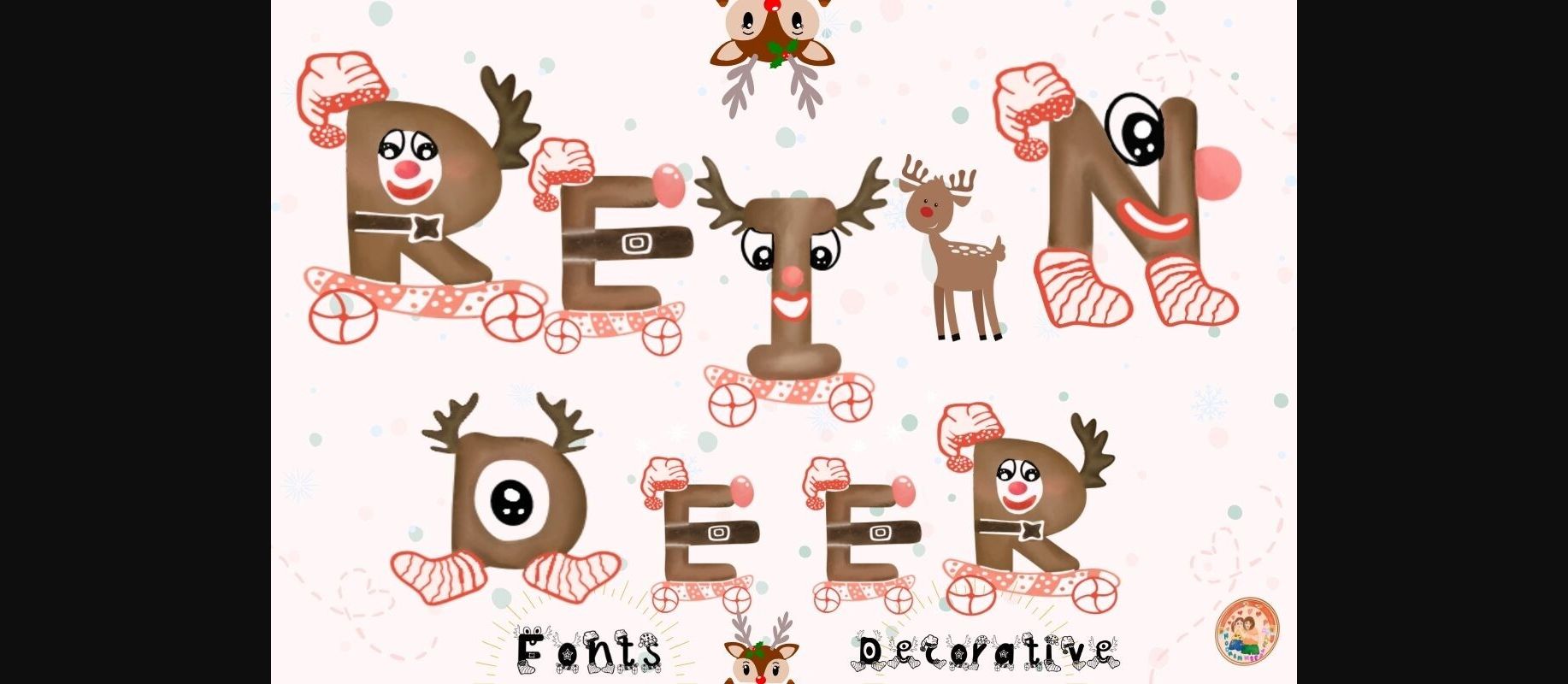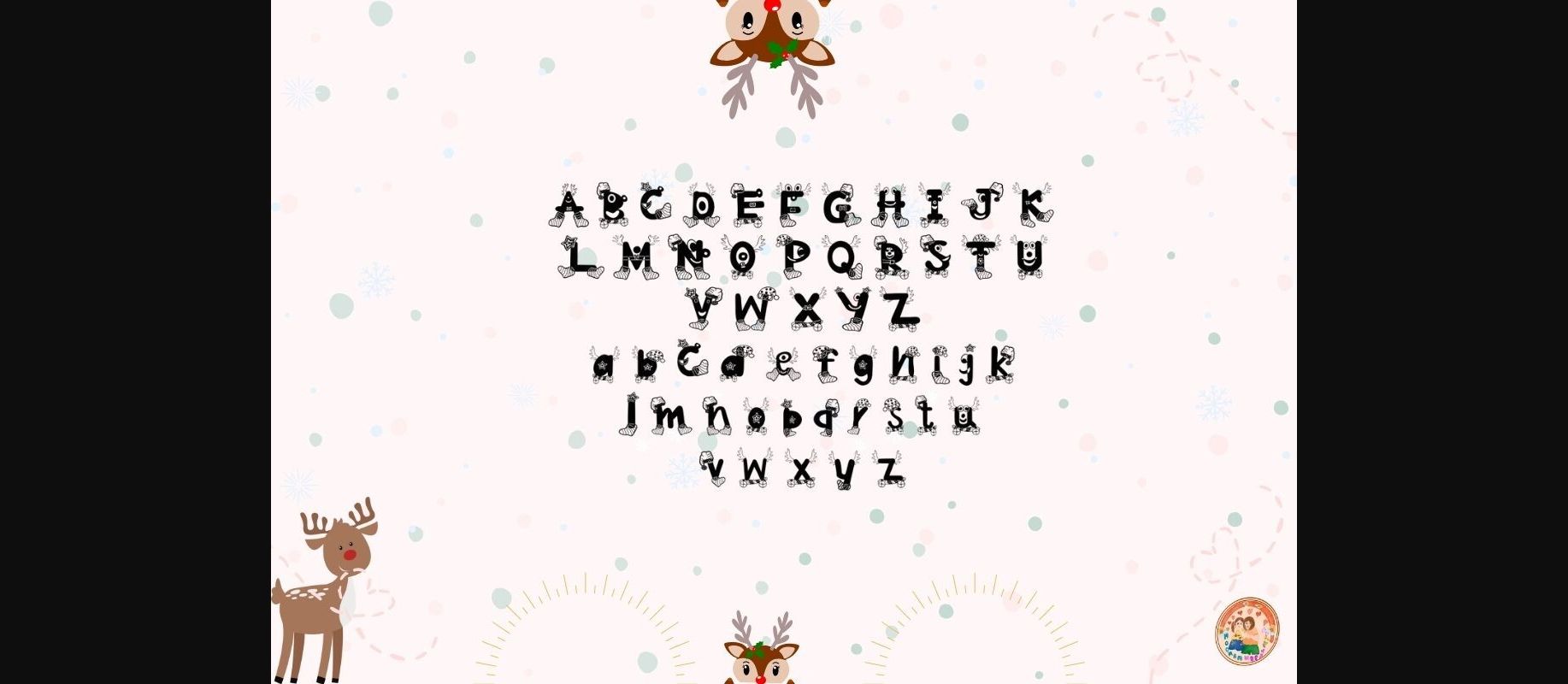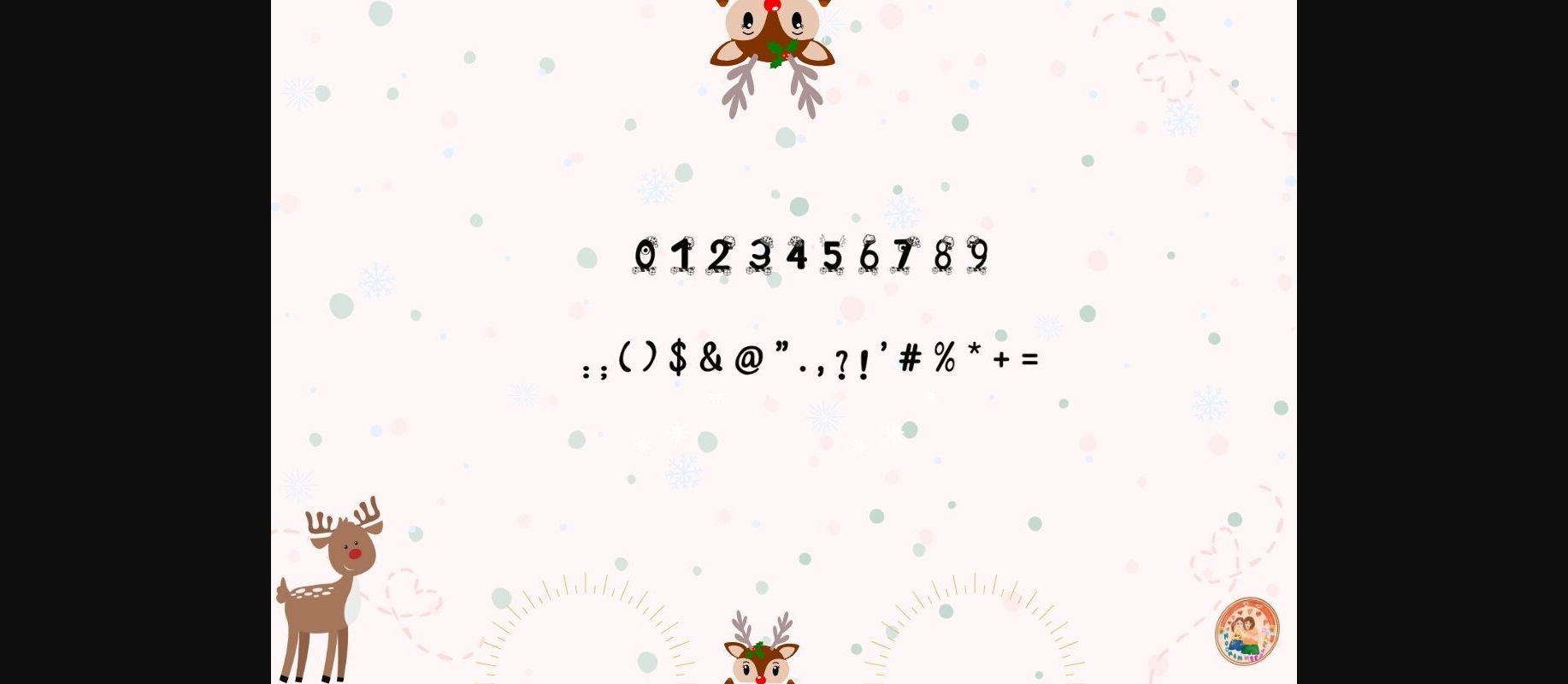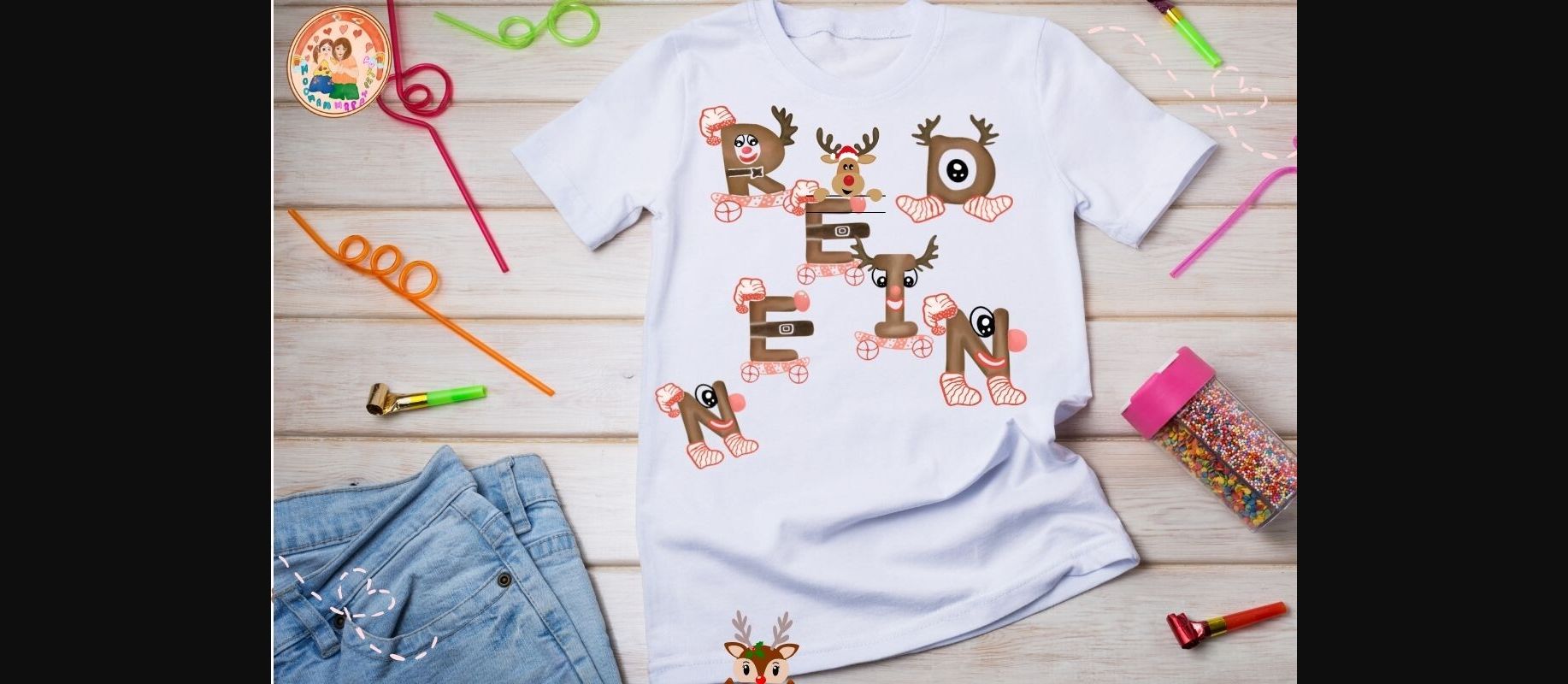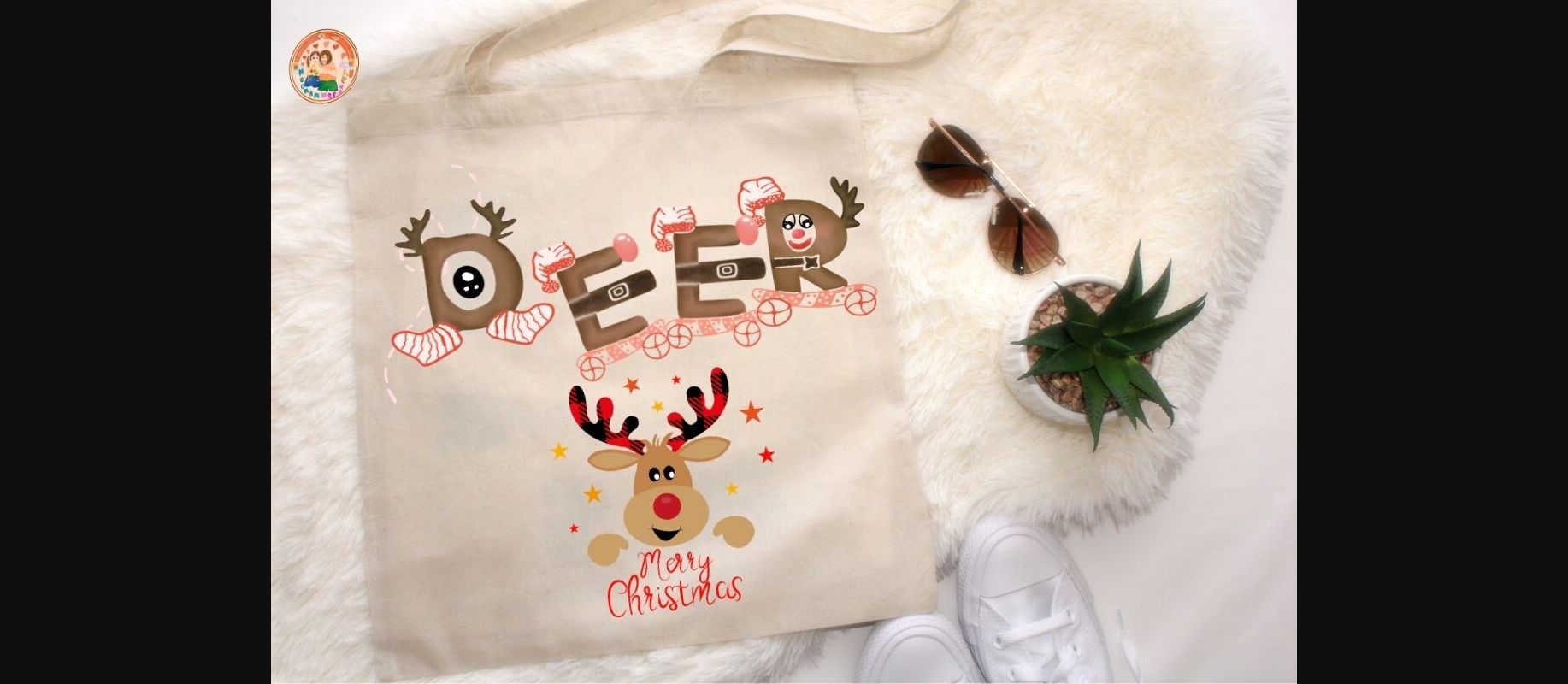
Reindeer Font
About Reindeer Font
Introducing ‘Reindeer’ font, the perfect way to infuse your holiday designs with festive cheer! This decorative Christmas typeface features delightful reindeer elements integrated into each letter. Whether you’re creating holiday cards, gift tags, or seasonal banners, ‘Reindeer’ adds a whimsical touch of reindeer magic to your text, making it the ideal choice for spreading joy during the holiday season.